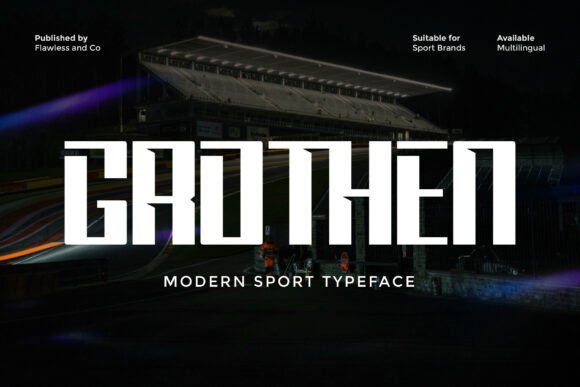
Unleash the Power of Grothen Font: Elevate Your Designs with a Bold and Energetic Modern Sport Sans Serif
In the world of typography, fonts play a crucial role in conveying messages, evoking emotions, and creating lasting impressions. For designers and crafters seeking to inject energy, strength, and impact into their work, the Grothen font is an exceptional choice. Designed to embody the spirit of athleticism and competition, Grothen is a bold and energetic modern sport sans serif font that delivers power and confidence to your typography.
The Design Philosophy Behind Grothen
Grothen’s design is rooted in the principles of strength, speed, and impact. Every letter is crafted with sharp edges, a solid structure, and a dynamic style that captures the essence of high-energy sports and competition. The font’s bold and sans serif design ensures that it stands out in high-impact designs while maintaining clarity and readability. This makes Grothen perfect for attention-grabbing visuals, sports branding, and bold headlines.
Key Features of Grothen Font
- Bold and Energetic Design: Grothen’s bold design ensures that your message is delivered with impact and confidence.
- Sharp Edges and Solid Structure: The font’s sharp edges and solid structure give it a dynamic and athletic feel.
- Modern Sport Sans Serif: Grothen’s modern sans serif design makes it perfect for sports branding, bold headlines, and high-impact designs.
- High Readability: Despite its bold design, Grothen maintains high readability, making it suitable for a wide range of applications.
Applications of Grothen Font
Grothen’s versatility and impact make it suitable for a variety of applications, including:
- Sports Branding: Use Grothen to create bold and energetic logos, jerseys, and marketing materials that capture the spirit of athleticism.
- Bold Headlines: Add impact to your headlines with Grothen’s bold and attention-grabbing design.
- High-Impact Designs: Use Grothen in high-impact designs, such as posters, flyers, and social media graphics, to grab attention and deliver your message.
Why Choose Grothen Font?
With so many fonts available, why choose Grothen? Here are a few compelling reasons:
- Unique Design: Grothen’s bold and energetic design sets it apart from other fonts, making it perfect for designers seeking to create unique and impactful work.
- Versatility: Grothen’s versatility makes it suitable for a wide range of applications, from sports branding to bold headlines.
- Readability: Despite its bold design, Grothen maintains high readability, making it easy to use in various contexts.
Tips for Using Grothen Font Effectively
To get the most out of Grothen, here are some tips for using the font effectively:
- Use it Sparingly: Due to its bold design, use Grothen sparingly to avoid overwhelming your design.
- Pair it with Complementary Fonts: Pair Grothen with complementary fonts to create visual interest and add depth to your design.
- Experiment with Colors: Experiment with different colors to find the perfect combination that enhances the impact of Grothen.
In conclusion, Grothen font is an exceptional choice for designers and crafters seeking to inject energy, strength, and impact into their work. With its bold and energetic design, sharp edges, and solid structure, Grothen captures the spirit of athleticism and competition. Its versatility, readability, and unique design make it perfect for sports branding, bold headlines, and high-impact designs. By following the tips outlined above, you can effectively use Grothen to elevate your designs and deliver your message with confidence and impact.